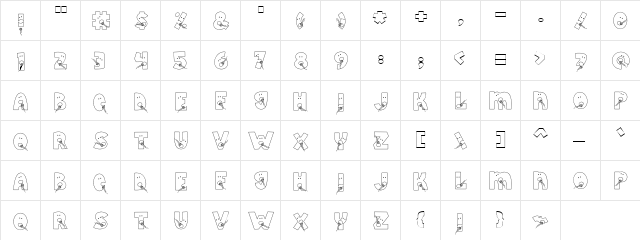
LD Karaoke Regular
Design Context for LD Karaoke Typeface
LD Karaoke is a composed and adaptable typeface that performs quietly and consistently across a wide range of design contexts.
Pro Tip: Use LD Karaoke in both headline and body roles to test its range before committing to a single application.